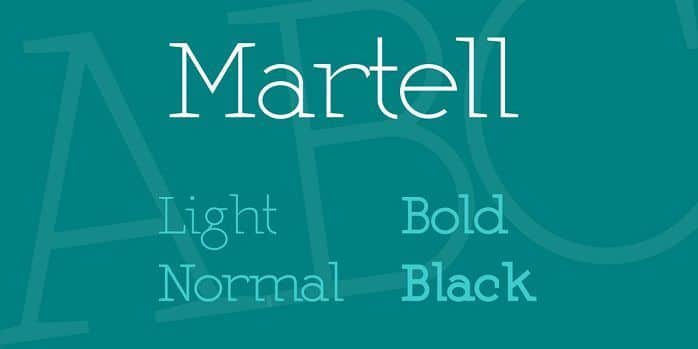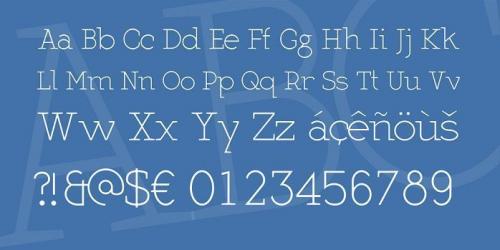
Martell is a slab font, great for display purposes as well as for mid-sized texts, designed by takuminokami. It comes in four weights (light, regular, bold and black) and it is free to download and use under an Attribution-NonCommercial-NoDerivs 3.0 Unported (CC BY-NC-ND 3.0) Creative Commons Licence.